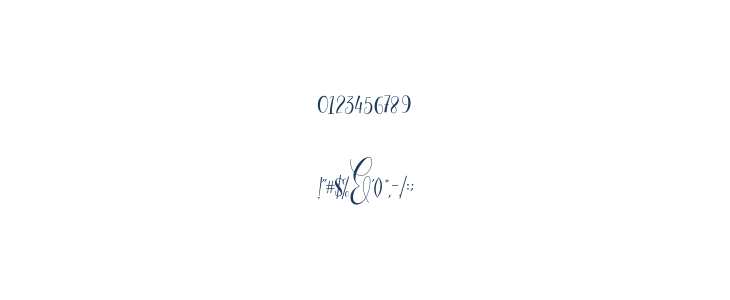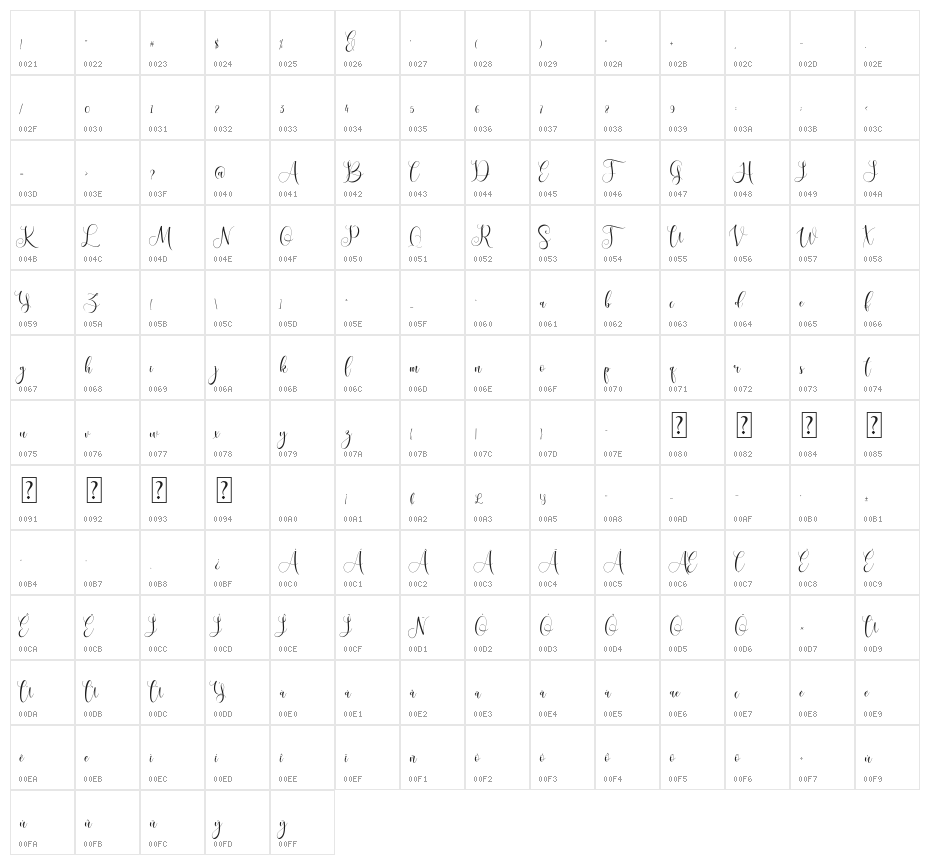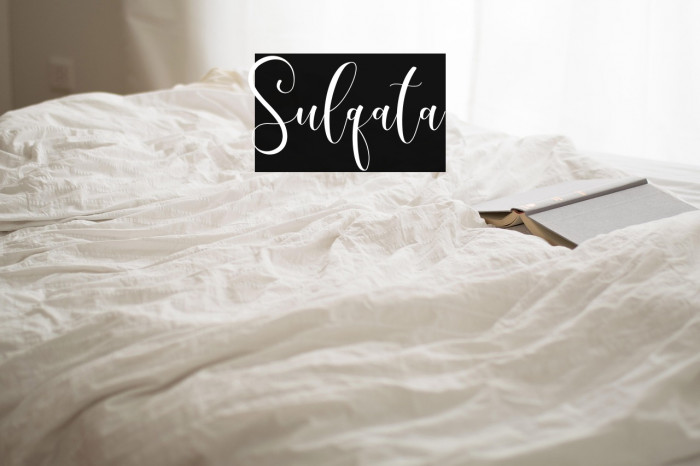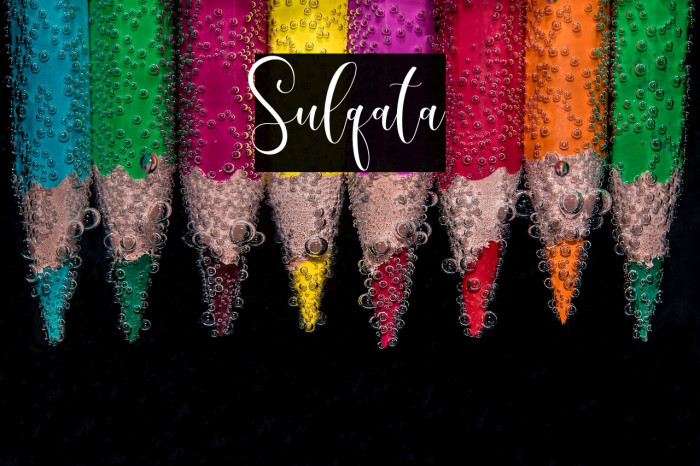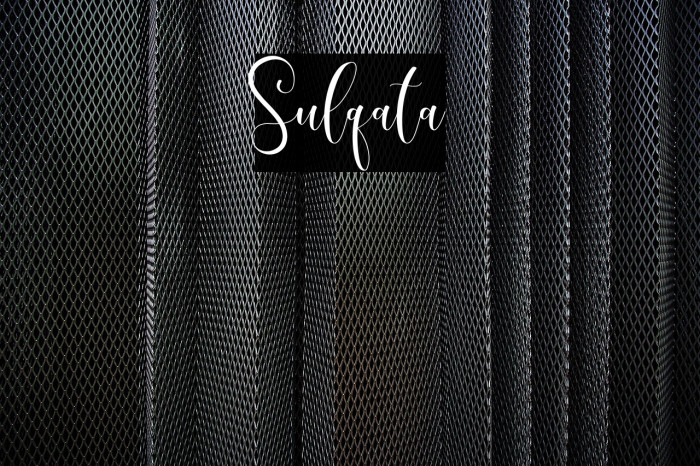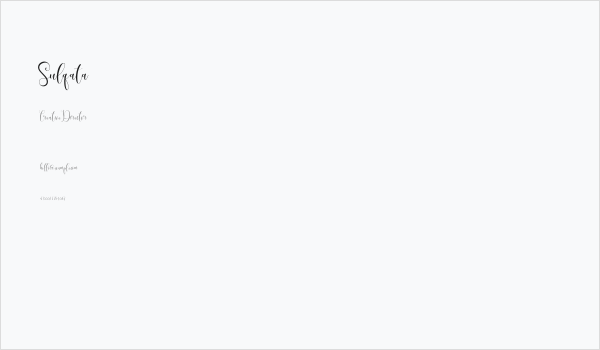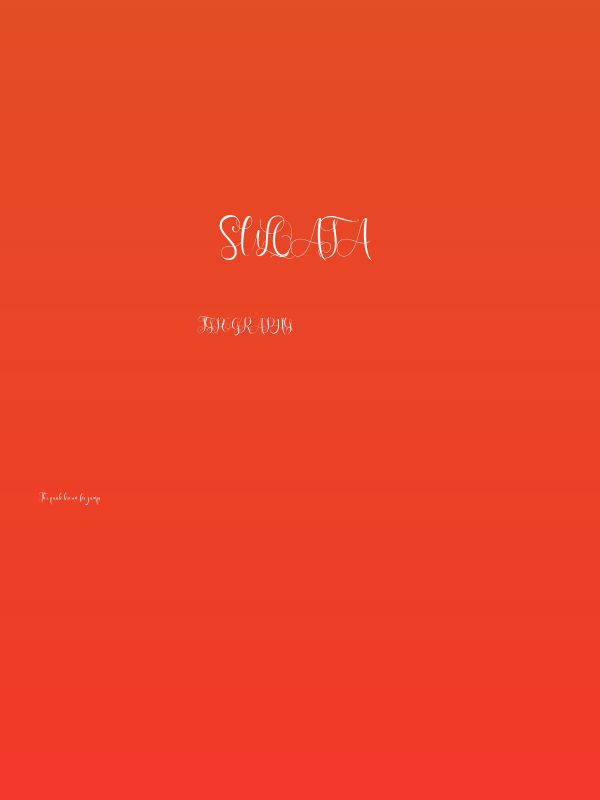
Sulqata Font
Sulqata Description
This font is an elegant and decorative script style, characterized by its intricate swirls and flourishes. The uppercase letters are particularly ornate, with exaggerated loops and curves that give a sense of sophistication and artistry. The lowercase letters maintain a consistent flow, with a slightly more restrained design compared to the uppercase, yet still retaining a graceful appearance. The numerals are slender and complement the overall aesthetic, while the special characters echo the elaborate style of the alphabet. This font is ideal for projects that require a touch of elegance and creativity.